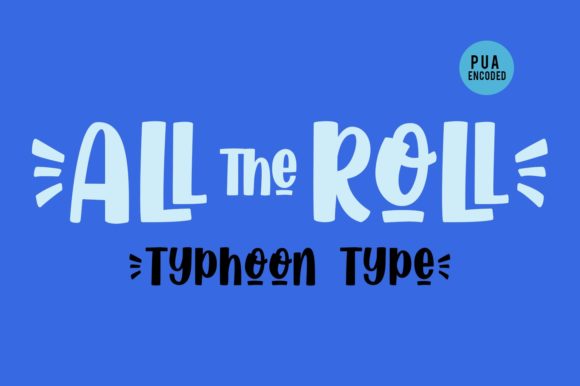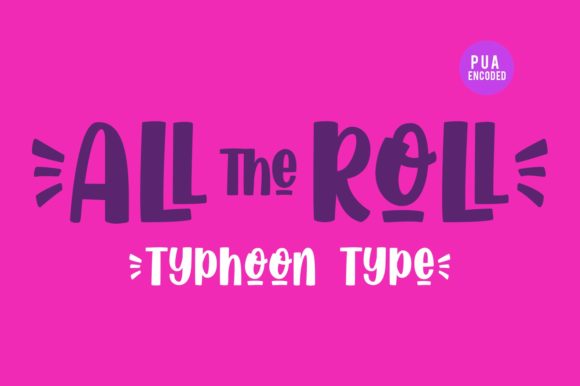
Discover the Charm of All the Roll Font: A Cute and Quirky Display Font
Are you a designer or crafter looking for a font that can add a touch of sweetness and friendliness to your creative projects? Look no further than All the Roll font! This adorable display font is perfect for anyone who wants to infuse their designs with a playful and whimsical vibe.
What Makes All the Roll Font So Special?
All the Roll font is a unique and eye-catching display font that is sure to capture the attention of your audience. Its cute and quirky design makes it perfect for a wide range of creative projects, from branding and advertising to crafting and DIY tutorials. Whether you’re designing a logo, creating a social media graphic, or crafting a handmade card, All the Roll font is sure to add a touch of personality and charm to your work.
Key Features of All the Roll Font
- Cute and Quirky Design: All the Roll font features a playful and whimsical design that is sure to delight your audience.
- Sweet and Friendly: This font has a warm and approachable feel that’s perfect for creating designs that are both fun and engaging.
- Display Font: All the Roll font is a display font, making it perfect for headlines, titles, and other attention-grabbing elements.
- Easy to Read: Despite its playful design, All the Roll font is easy to read, making it perfect for use in a wide range of creative projects.
Uses for All the Roll Font
All the Roll font is a versatile font that can be used in a wide range of creative projects, including:
- Branding and Advertising: Use All the Roll font to create eye-catching logos, ads, and marketing materials that are sure to grab attention.
- Crafting and DIY Tutorials: Add a touch of personality to your crafting and DIY tutorials with All the Roll font.
- Social Media Graphics: Use All the Roll font to create engaging social media graphics that are sure to stand out.
- Handmade Cards and Gifts: Add a personal touch to your handmade cards and gifts with All the Roll font.
Tips for Using All the Roll Font
Here are a few tips for getting the most out of All the Roll font:
- Use it as a Headline Font: All the Roll font is perfect for use as a headline font, where its playful design can really shine.
- Pair it with Other Fonts: Experiment with pairing All the Roll font with other fonts to create a unique and eye-catching design.
- Use it in Color: Don’t be afraid to use All the Roll font in color – its playful design looks great in a wide range of colors.
All the Roll font is a cute and quirky display font that is sure to add a touch of sweetness and friendliness to your creative projects. With its playful design and easy-to-read format, it’s perfect for use in a wide range of creative projects, from branding and advertising to crafting and DIY tutorials. So why not give All the Roll font a try and see how it can add a touch of charm to your designs?
- What type of font is All the Roll font? All the Roll font is a display font.
- Is All the Roll font easy to read? Yes, despite its playful design, All the Roll font is easy to read.